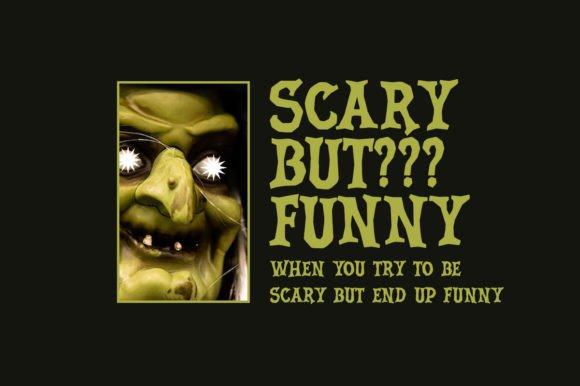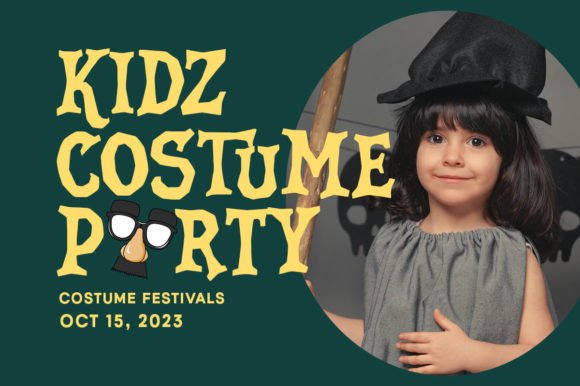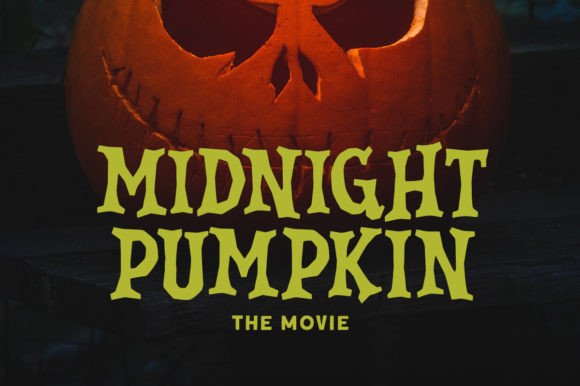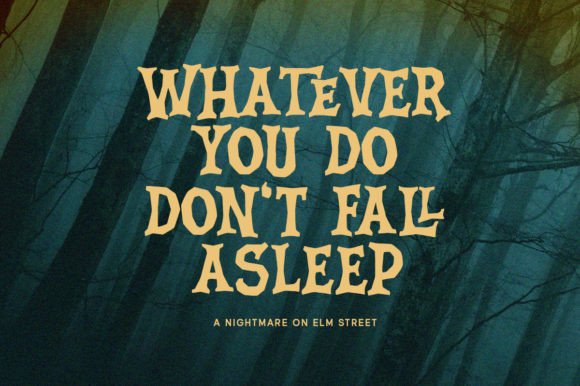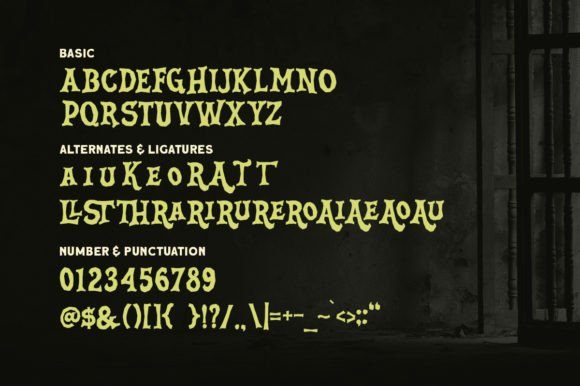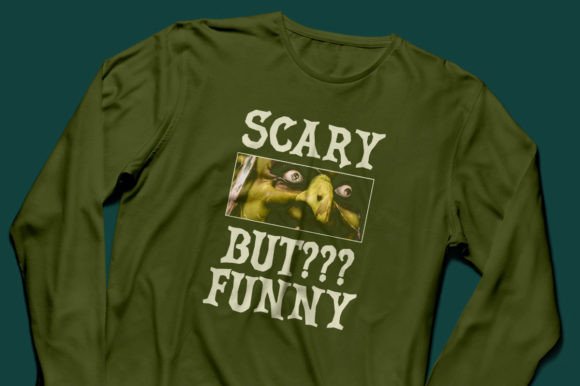
Introduction to Fright Maiden Font
Do you remember that moment when you’re working on a creative project and you just can’t seem to find the right font to set the mood? It’s like searching for a needle in a haystack, until suddenly, you stumble upon that one font that makes everything fall into place. For designers who specialize in horror, thriller, and spooky-themed designs, that moment of epiphany often comes with the discovery of the Fright Maiden Font.
This bold and eerie serif typeface is a game-changer for designers looking to add a touch of darkness to their projects. With its unique shape and high-quality design, the Fright Maiden Font is perfect for logos, invitations, labels, magazines, books, and any other advertising purpose that requires a sense of foreboding.
Key Features of Fright Maiden Font
- Unique Gothic-inspired design perfect for creative projects and horror-themed designs.
- High-quality font with detailed, intricate designs and a transparent background, allowing for seamless integration with various backgrounds.
- Large character set, including uppercase and lowercase letters, numbers, and special characters, making it suitable for a variety of creative projects.
- Designed to add a touch of eeriness and mystery to any design project, making it an excellent choice for designers looking for a unique and captivating font.
Honest Review: Fright Maiden Font
I recently had the chance to work with the Fright Maiden Font for a creative project, and I must say it was a unique experience. This font has a certain charm to it that can add a touch of spooky elegance to any design. ✨
One of the things that stood out to me about the Fright Maiden Font is its high quality. The font is crisp and clear, making it perfect for printing or digital use. The transparent background also makes it easy to use in any design, without the risk of a distracting background. ✨
Here are some of the features that make the Fright Maiden Font a great design resource:
- Unique and spooky design
- High quality font
However, there are a few limitations to keep in mind. The font is a bit limited in its usage, and may not be suitable for all types of projects. Additionally, the font may not be compatible with all software or systems. ⚠️
Overall, I was impressed with the Fright Maiden Font, and would definitely consider using it again in the future. It’s a great addition to any design resource library, and can add a touch of creativity to any project. ✨
Even in presentation software like PowerPoint and Word, the Fright Maiden Font can add a touch of sophistication. To use the font in PowerPoint, select the font from the font library and apply it to your text elements. In Word, you can also use the font to create a spooky design for your documents. Remember to download the font for free to access its full range of features.
To get the most out of the Fright Maiden Font, experiment with different font sizes, colors, and styles. You can also combine the font with other design elements, such as graphics and images, to create a unique and captivating design. Don’t forget to save your font files for future use and share them with others.
Can I customize the Fright Maiden Font for my design project?
Yes, you can customize the Fright Maiden Font to suit your design needs. The font’s design allows for various modifications, such as color changes and layer blending. However, be aware that extensive modifications may affect the font’s readability and overall aesthetic. It’s essential to strike a balance between customization and maintaining the font’s original character.